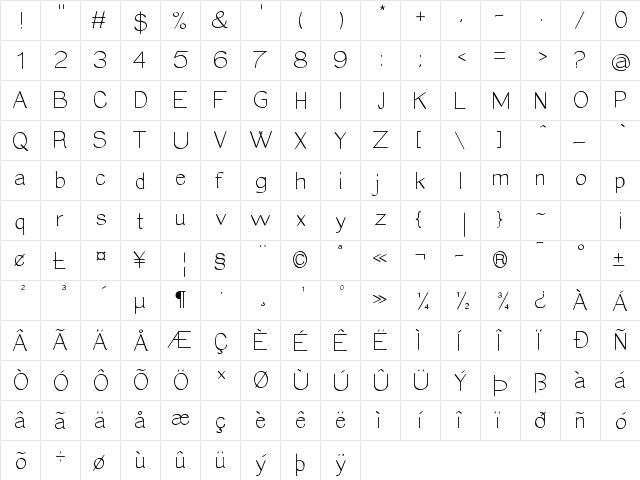
Epifan?a Regular
Design Context for Epifan?a Typeface
Epifan?a is a composed and adaptable typeface that performs quietly and consistently across a wide range of design contexts.
Pro Tip: Use Epifan?a in both headline and body roles to test its range before committing to a single application.